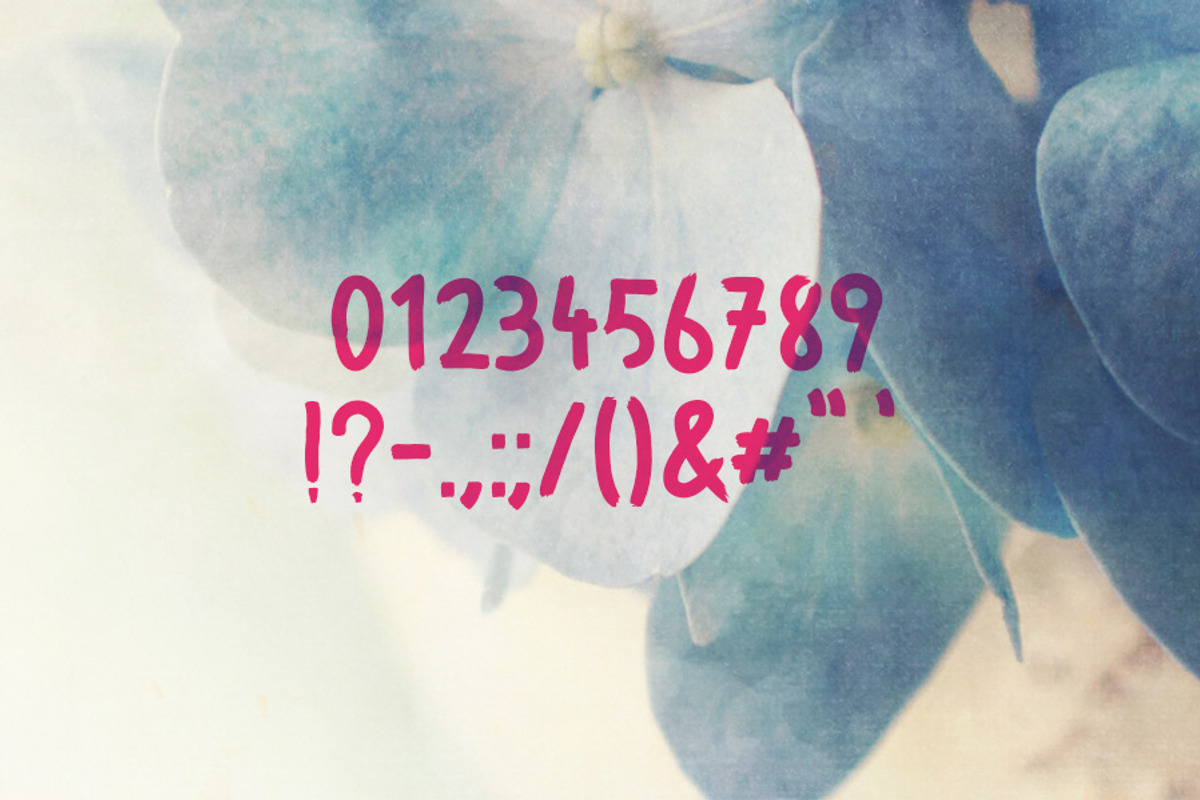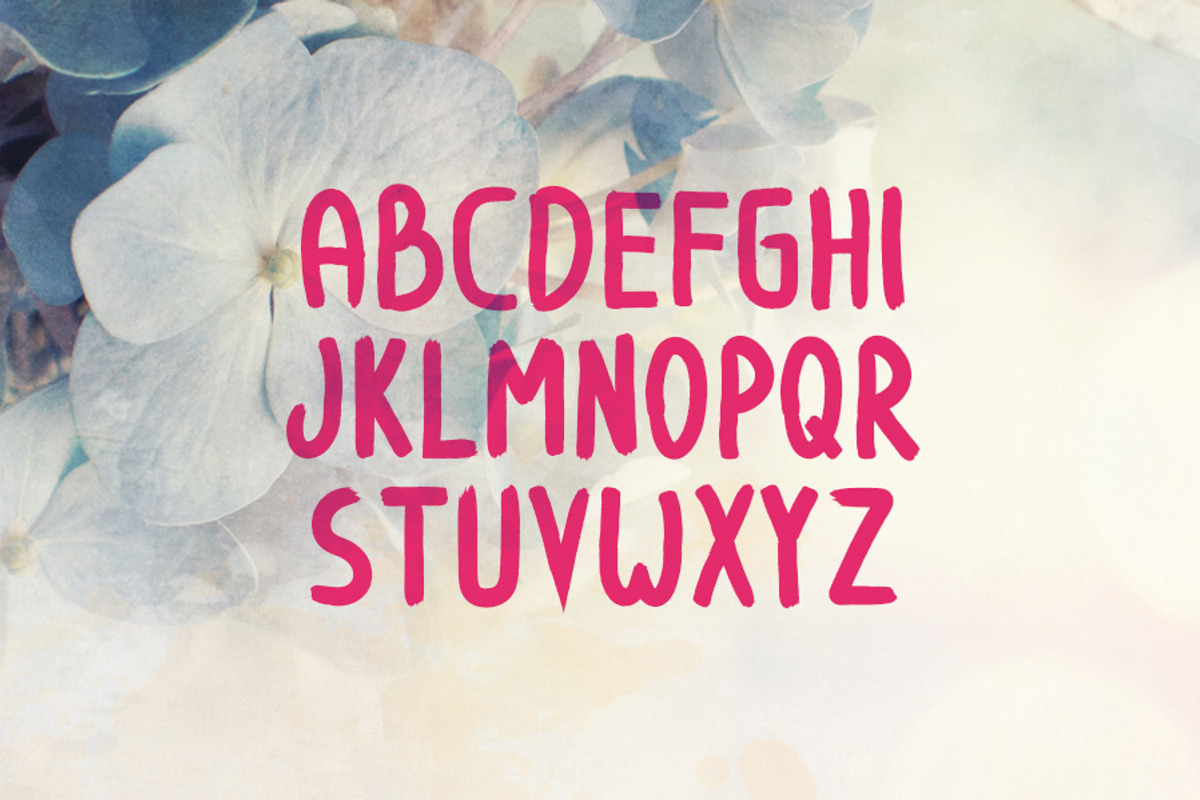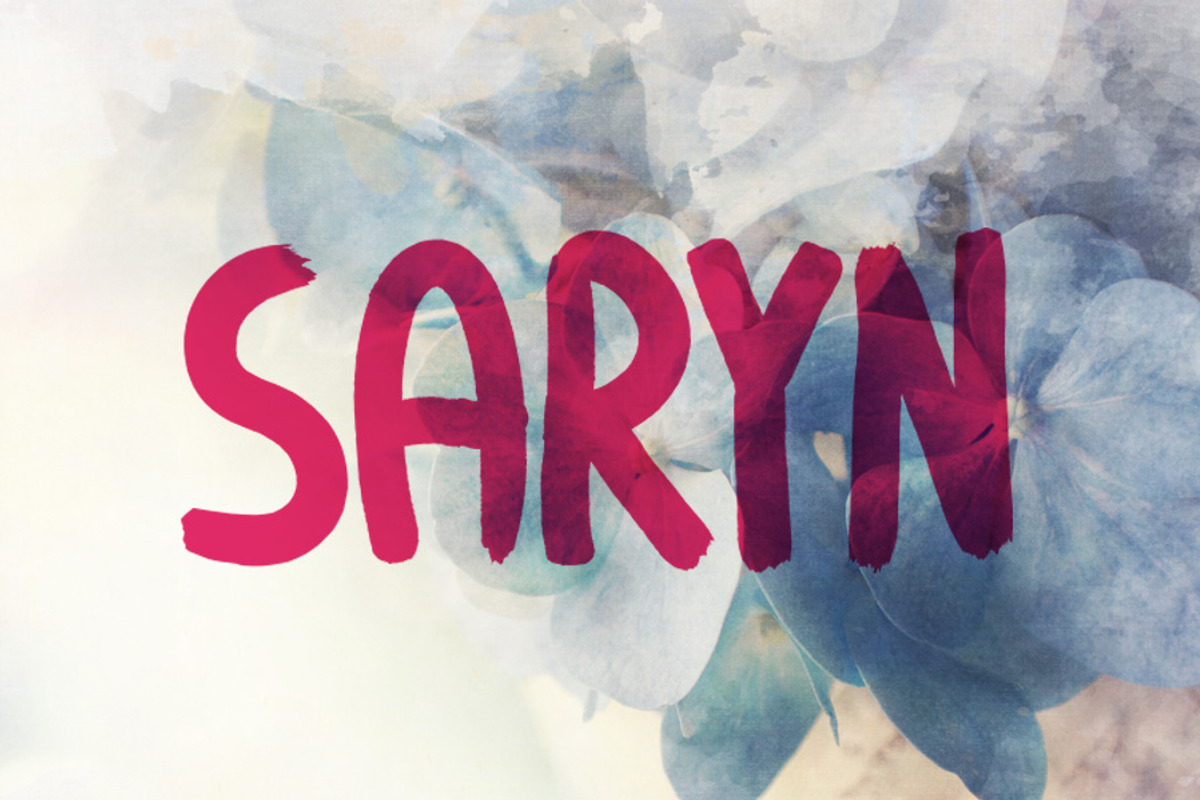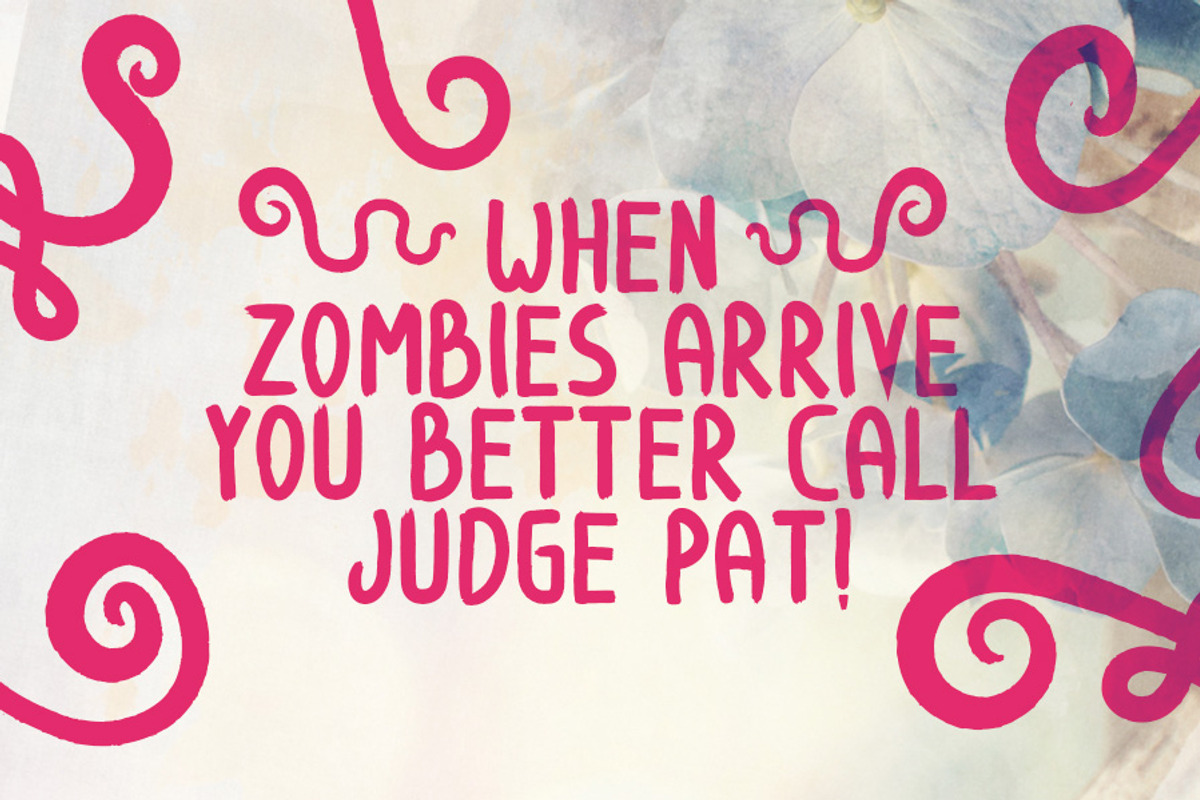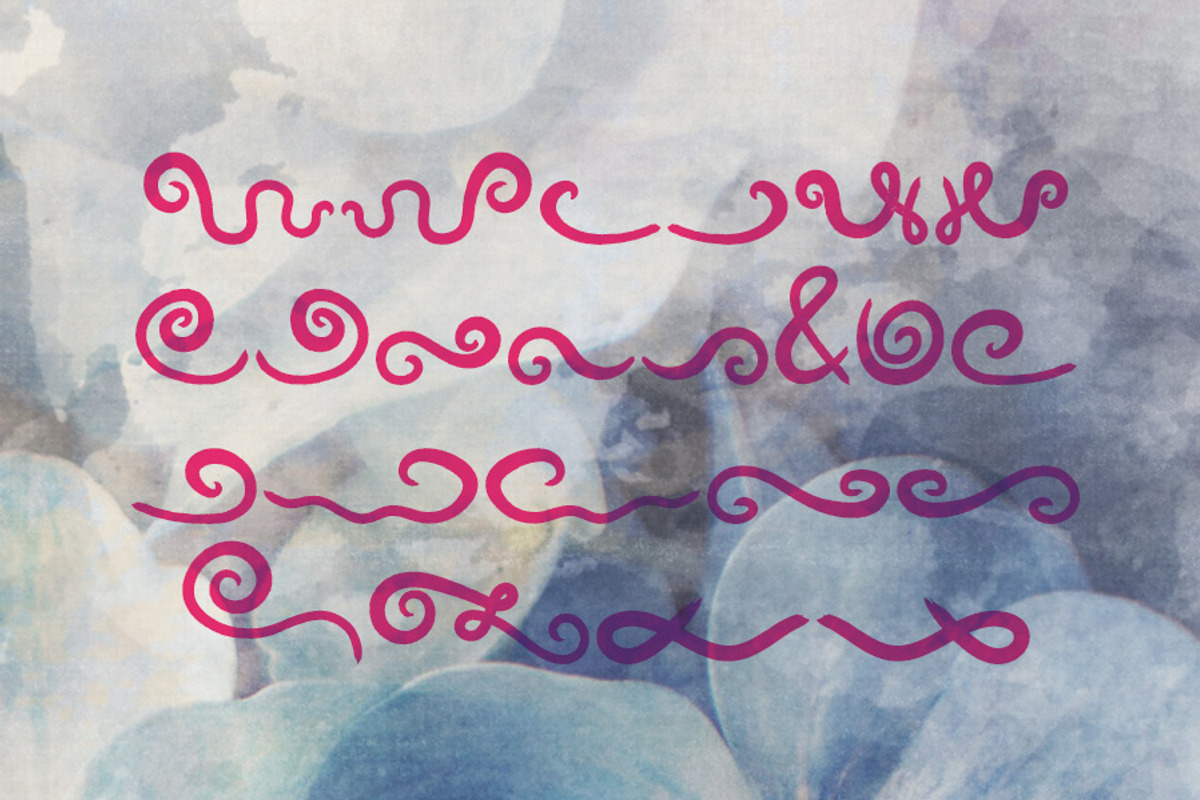
Saryn Typeface
Saryn Typeface by Tugcu Design Co. is a font selected for branding, posters, packaging, typography.
- Saryn is a handdrawn brush font that includes uppercase letters, numerals, punctuation and an ornaments style.
Why Saryn Typeface is worth a look
Saryn Typeface by Tugcu Design Co. fits naturally into Branding, posters, packaging, typography.